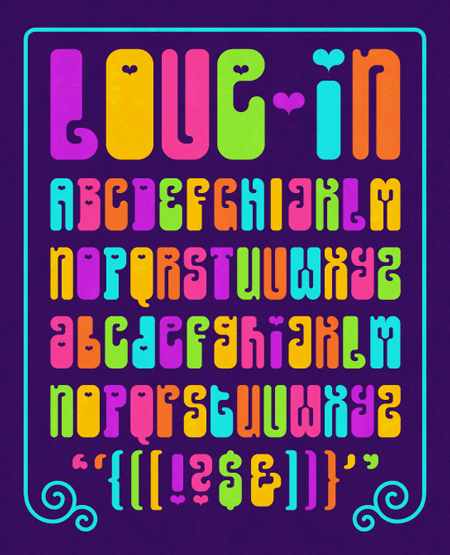
Oooohh, SanFran is back! *\o/* Super 'love' design
amazing asthetic. has a 60s/70s feel and is very loveable
Beautiful sample! A good approach to a "heart-in" technique.
Love-inby MistressEllipsis